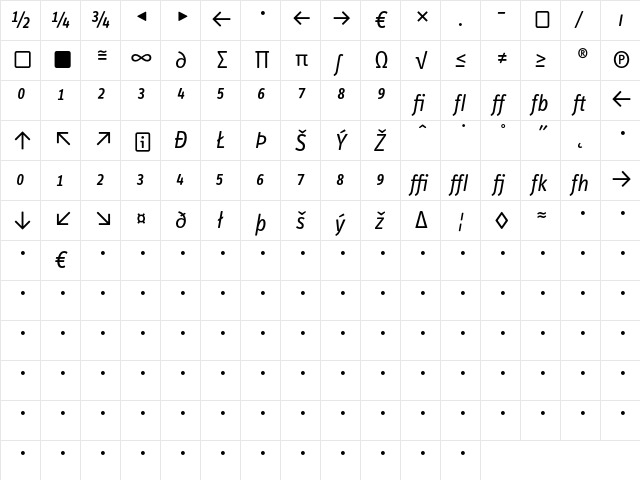
InfoTextRegular ItalicExp
Design Context for InfoTextRegular Typeface
InfoTextRegular is a composed and adaptable typeface that performs quietly and consistently across a wide range of design contexts. The slanted form adds forward momentum and visual energy.
Pro Tip: Use InfoTextRegular for emphasis, pull quotes, and subheadings where its slanted energy can add rhythm to the layout.